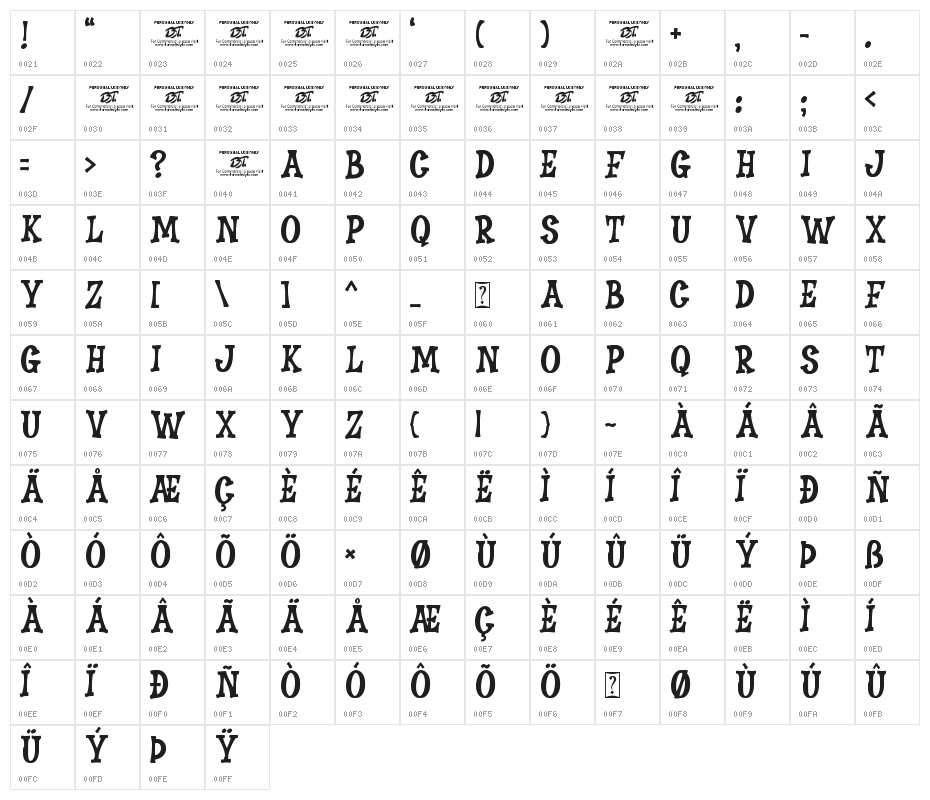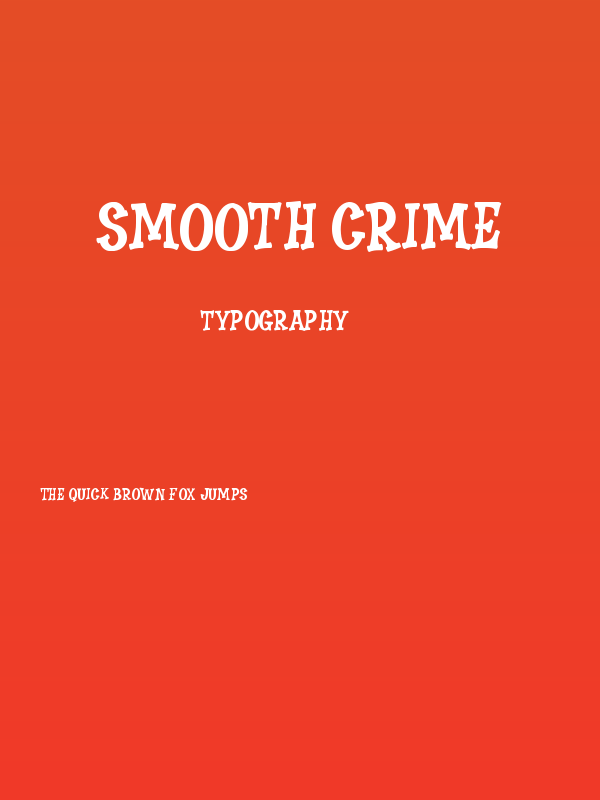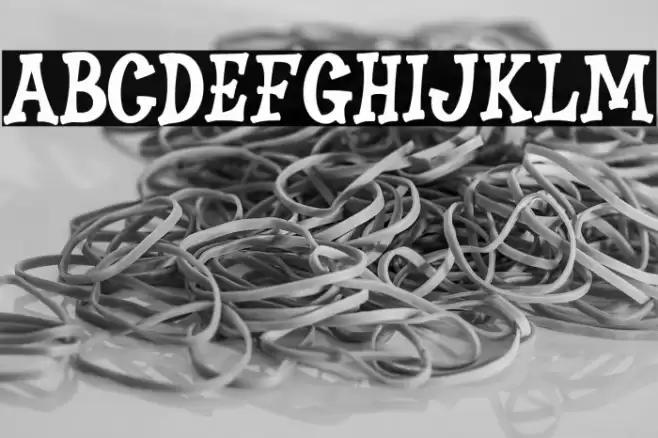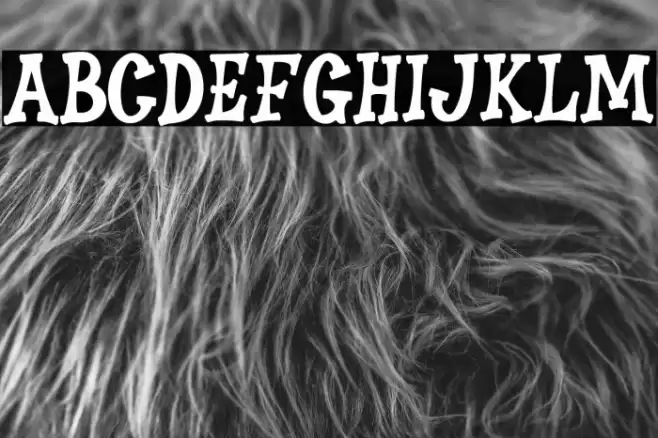
Smooth Crime Font
Smooth Crime Description
This font features a bold and dynamic style with a slightly distorted appearance, giving it a unique and edgy character. The uppercase letters are prominent and have a playful, almost cartoonish flair, with exaggerated serifs and varying stroke widths that add to its distinctive look. The lowercase letters maintain the same boldness, ensuring consistency across the typeface. The numbers and special characters are equally bold, with a quirky touch that complements the overall design. This font is ideal for projects that require a strong visual impact and a sense of creativity.
| Proposed Projects | Perfect for posters, album covers, comic book titles, and creative branding. |